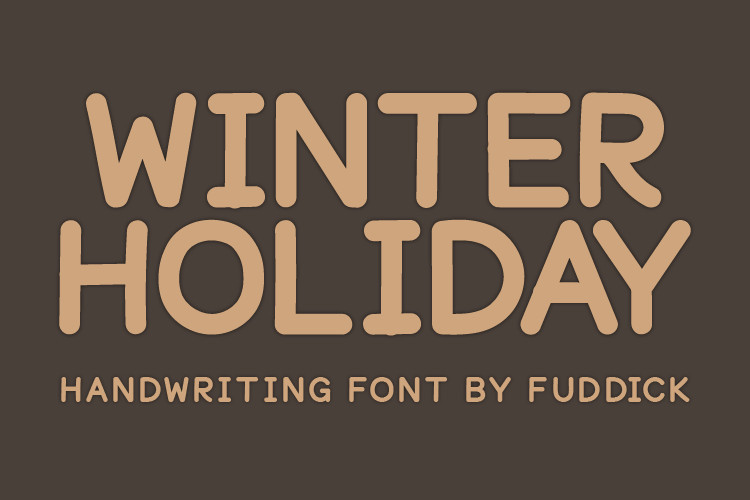
Winter Holiday Font
Winter Holiday Display Font, This font was created for all forms of business and branding such as clothing, logos, skate boards and others according to your needs.